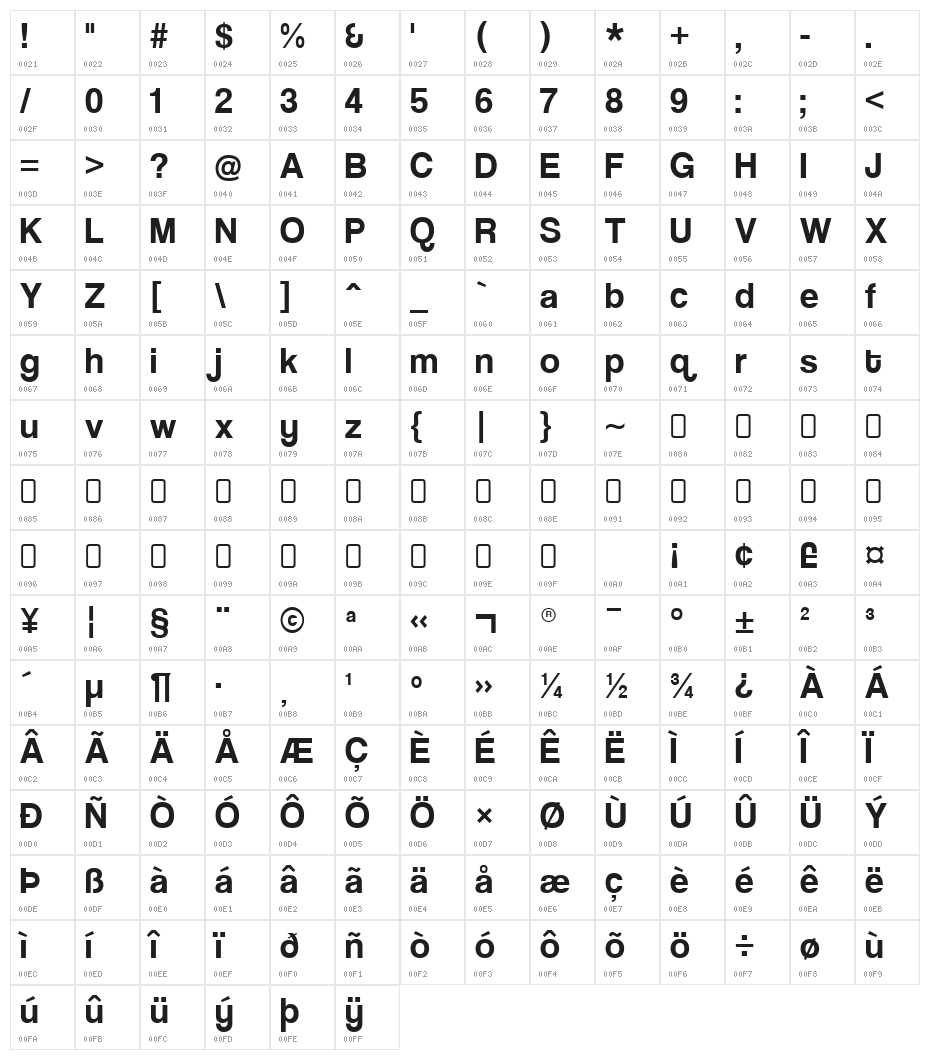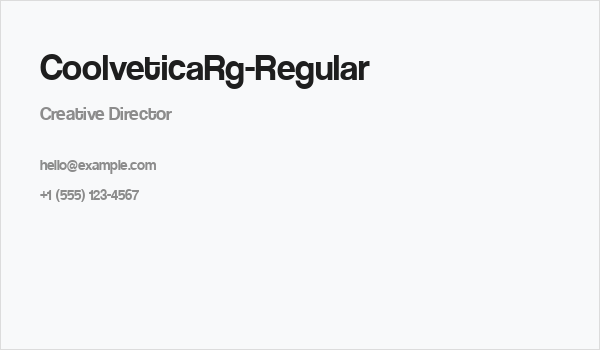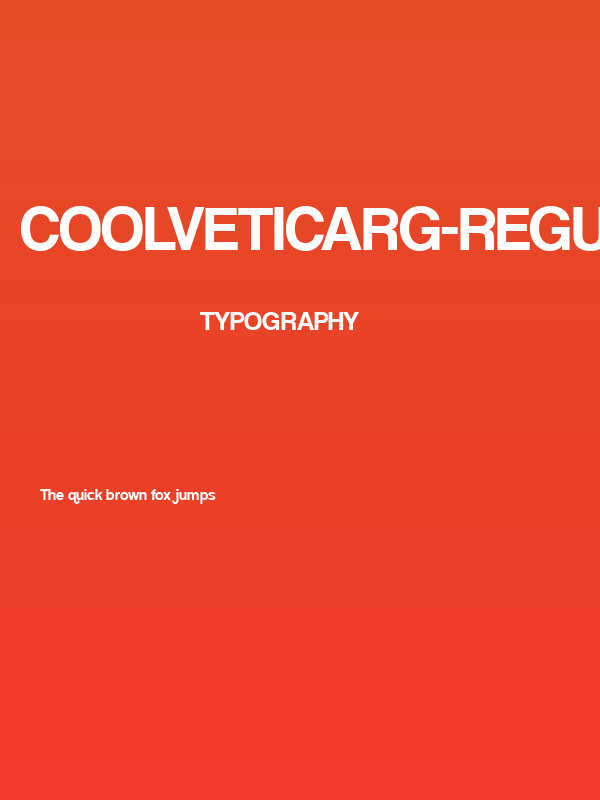
CoolveticaRg-Regular Font
CoolveticaRg-Regular Description
This font features a clean, modern sans-serif style with smooth, rounded edges and a uniform stroke width. It exudes a friendly and approachable vibe, making it ideal for contemporary designs. The characters are well-proportioned, with a slightly condensed appearance that enhances readability without sacrificing style. The numerals and special characters maintain the same aesthetic, ensuring consistency across all text elements. Its simplicity and clarity make it versatile for various applications, from digital interfaces to print media.
Fonts by www.typodermicfonts.com - Ray Larabie
| Width | Condensed |
| Use Case | Headlines, Body text, Logos |
| Proposed Projects | Ideal for branding, advertising, web design, and user interfaces due to its modern and friendly appearance. |